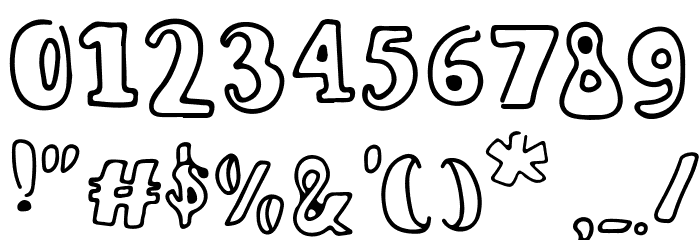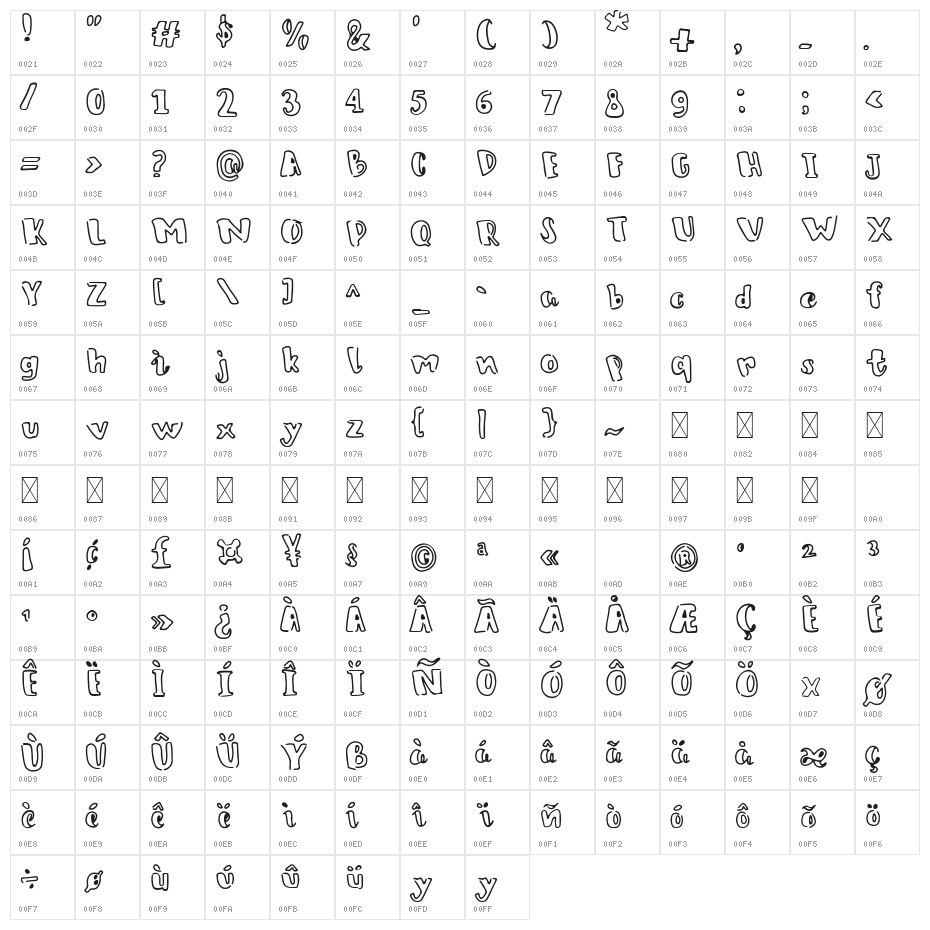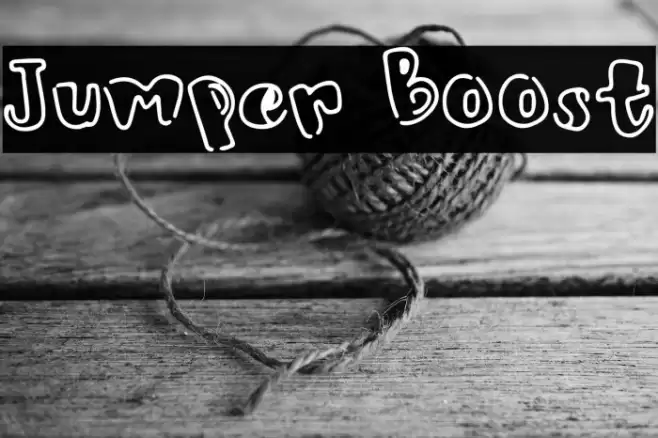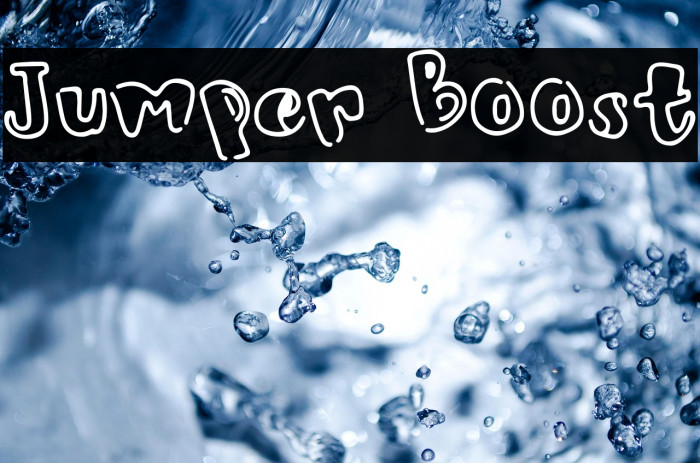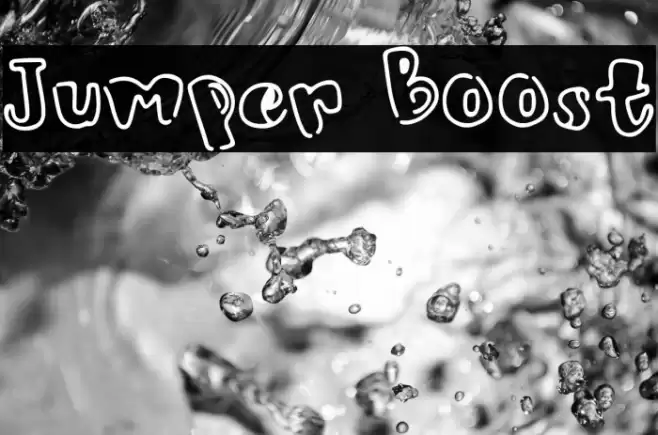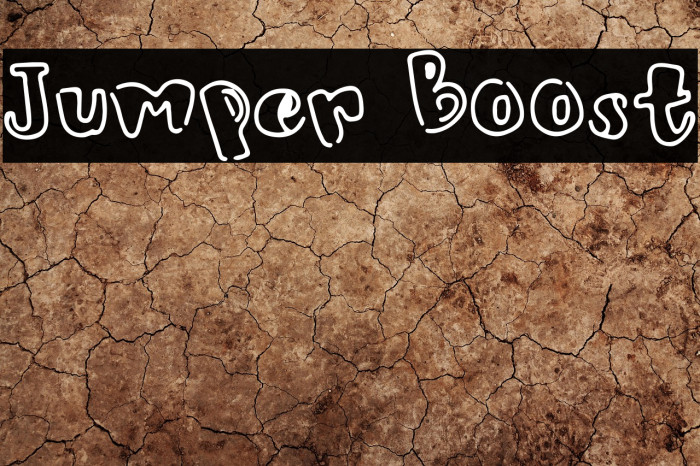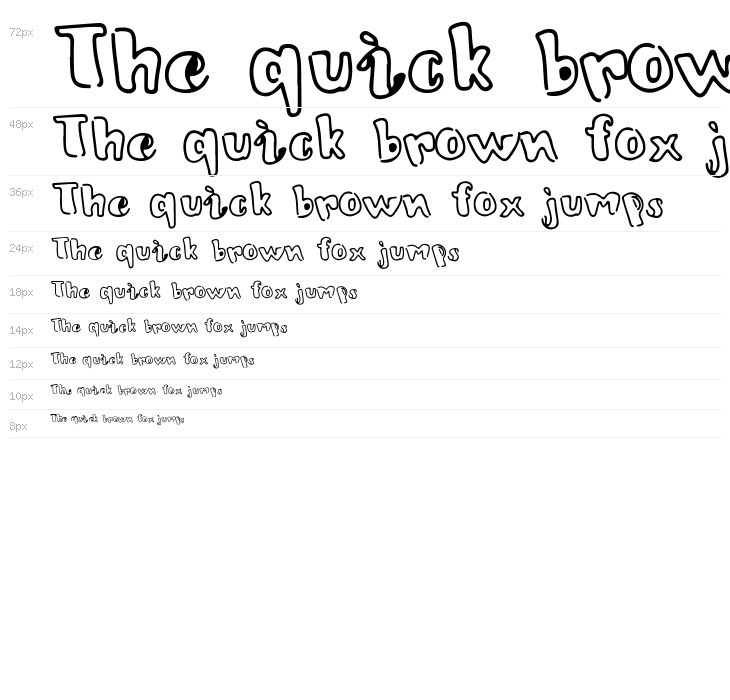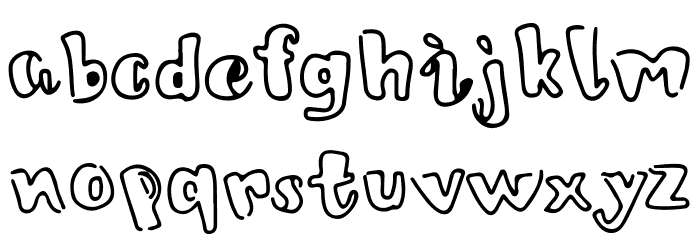
Jumper Boost Font
Jumper Boost Description
This playful and bold font features a hand-drawn, cartoonish style with a lively and energetic appearance. The characters are outlined with a thick black stroke, giving them a distinctive and eye-catching look. Each letter has a whimsical, slightly irregular shape, adding to the font's charm and uniqueness. The numbers and special characters maintain the same playful aesthetic, making them suitable for creative and informal designs. This font is perfect for projects that require a fun and engaging visual element.
| Overall Style | Playful, Cartoonish |
| Proposed Projects | Ideal for children's books, comic strips, playful posters, and party invitations. |